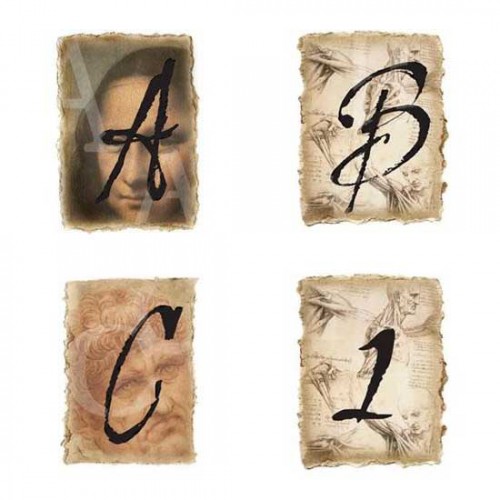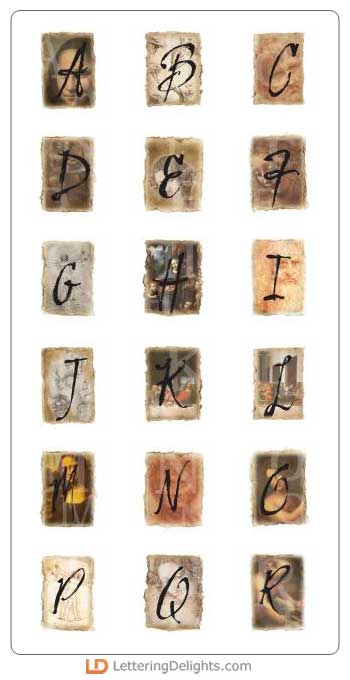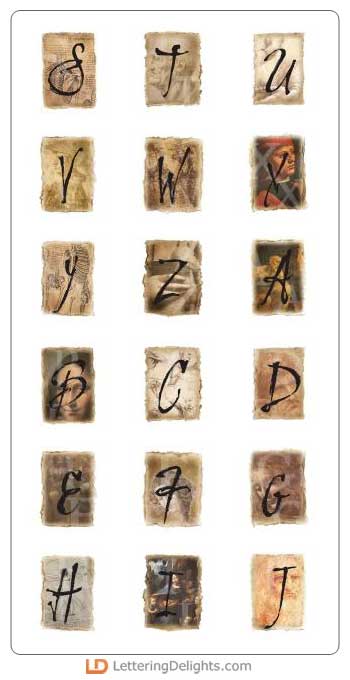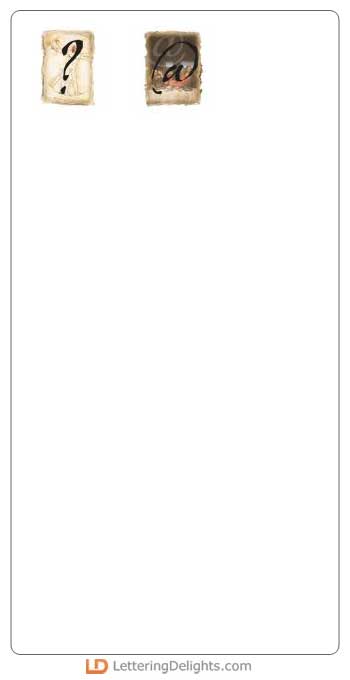
Celebrate the artwork of the famous Leonardo Da Vinci with this incredibly unique alphabet download. The letters are set in front of a backdrop of Leonardo's classic works, including the Mona Lisa. Express your artistic lettering style on everything from scrapbook pages to newsletters to personalized gifts. This is a must-have for art teachers!